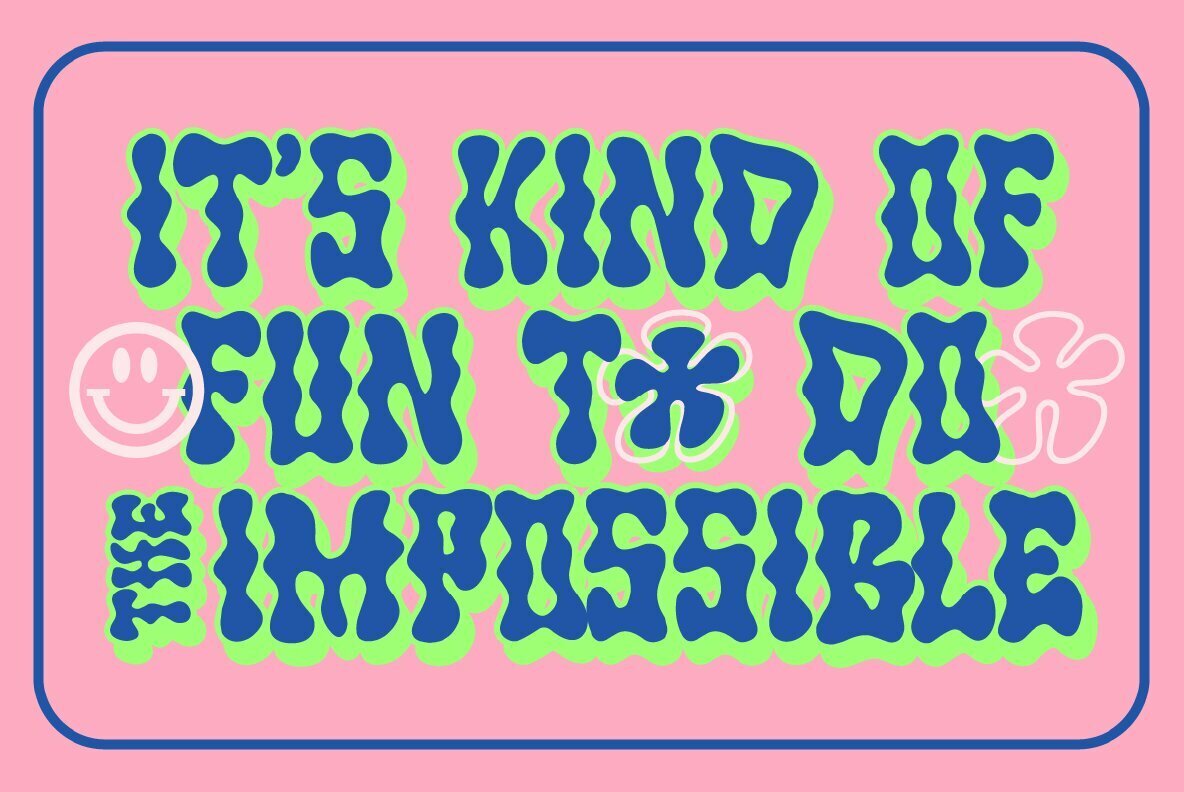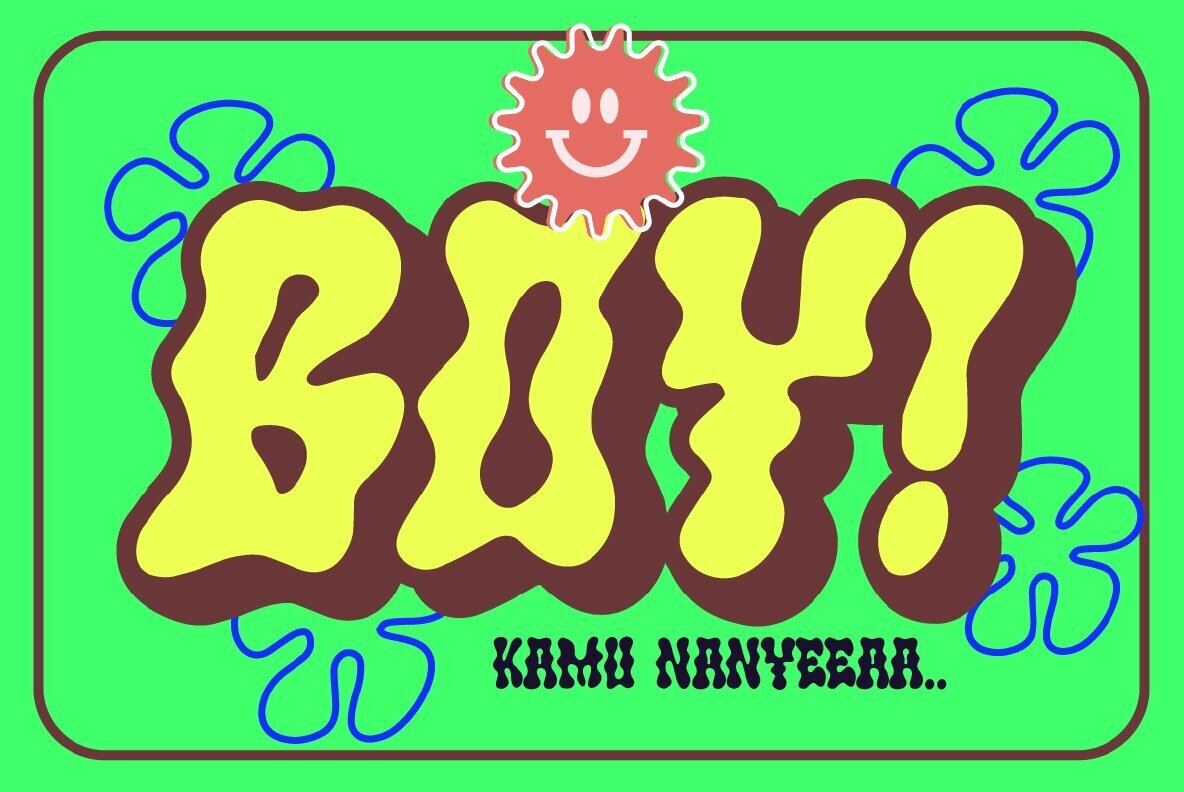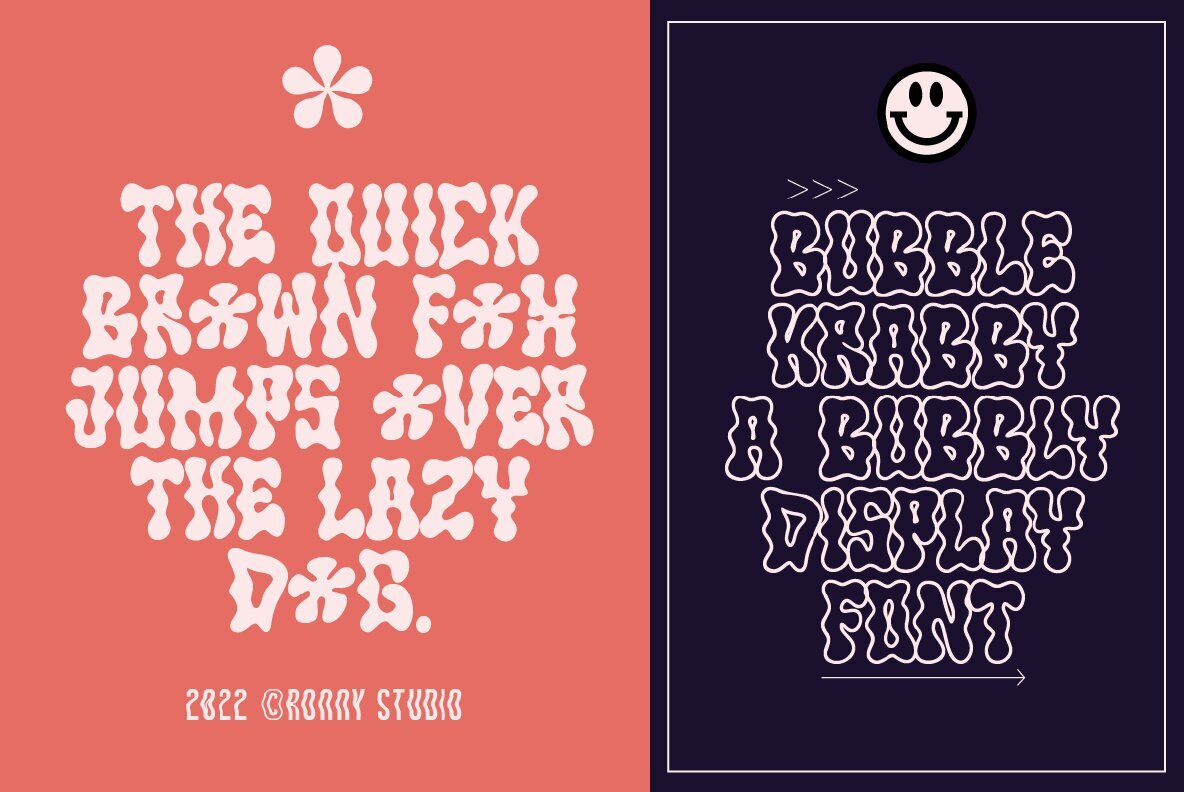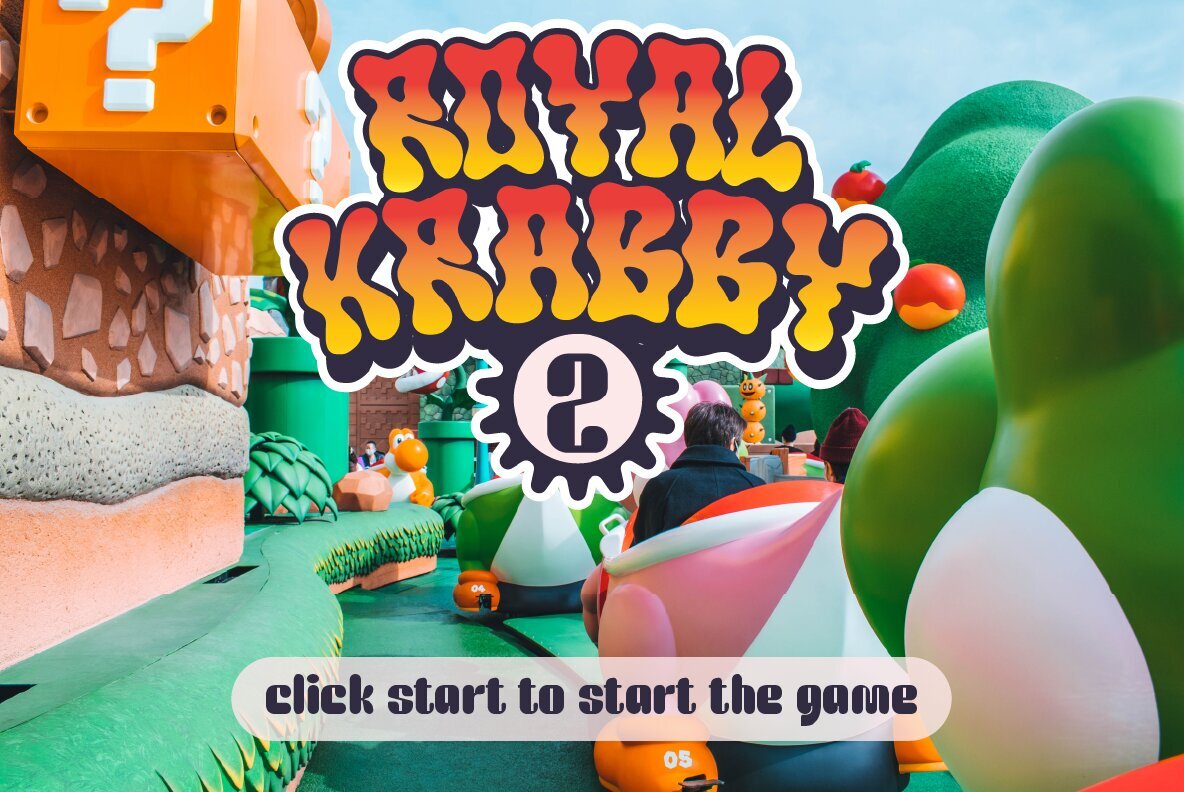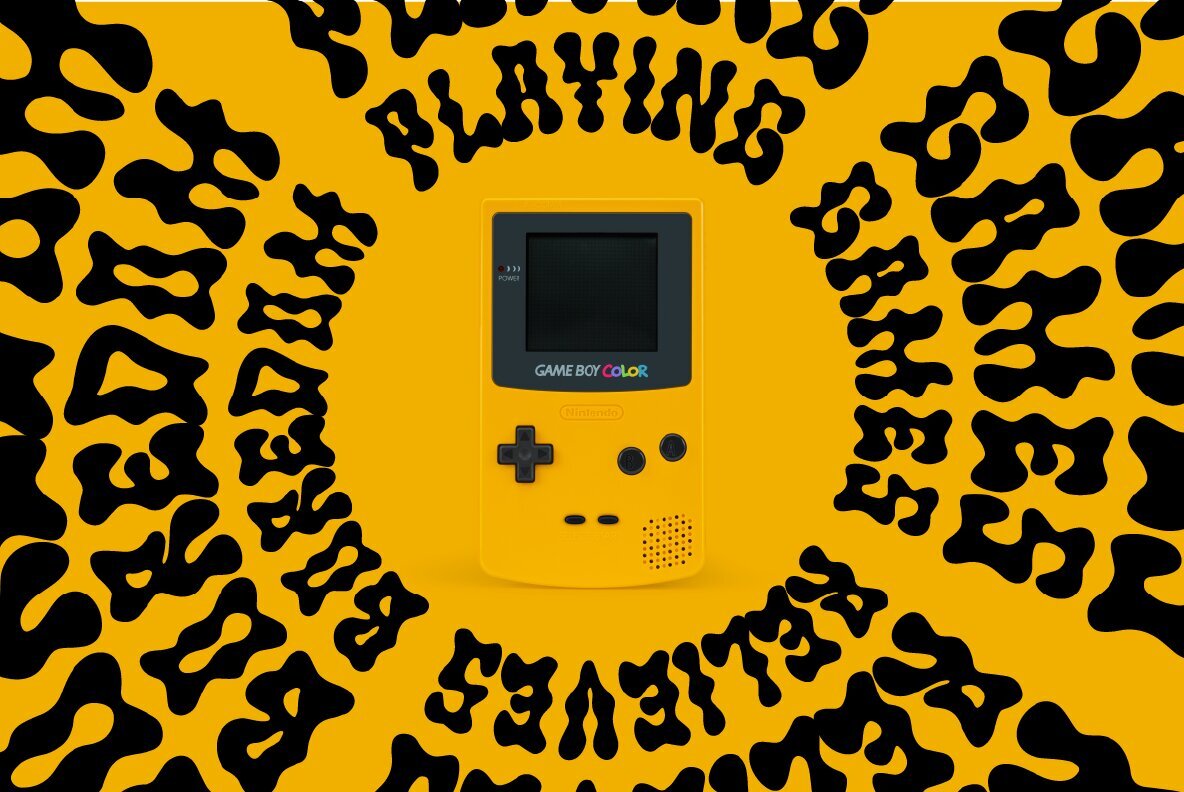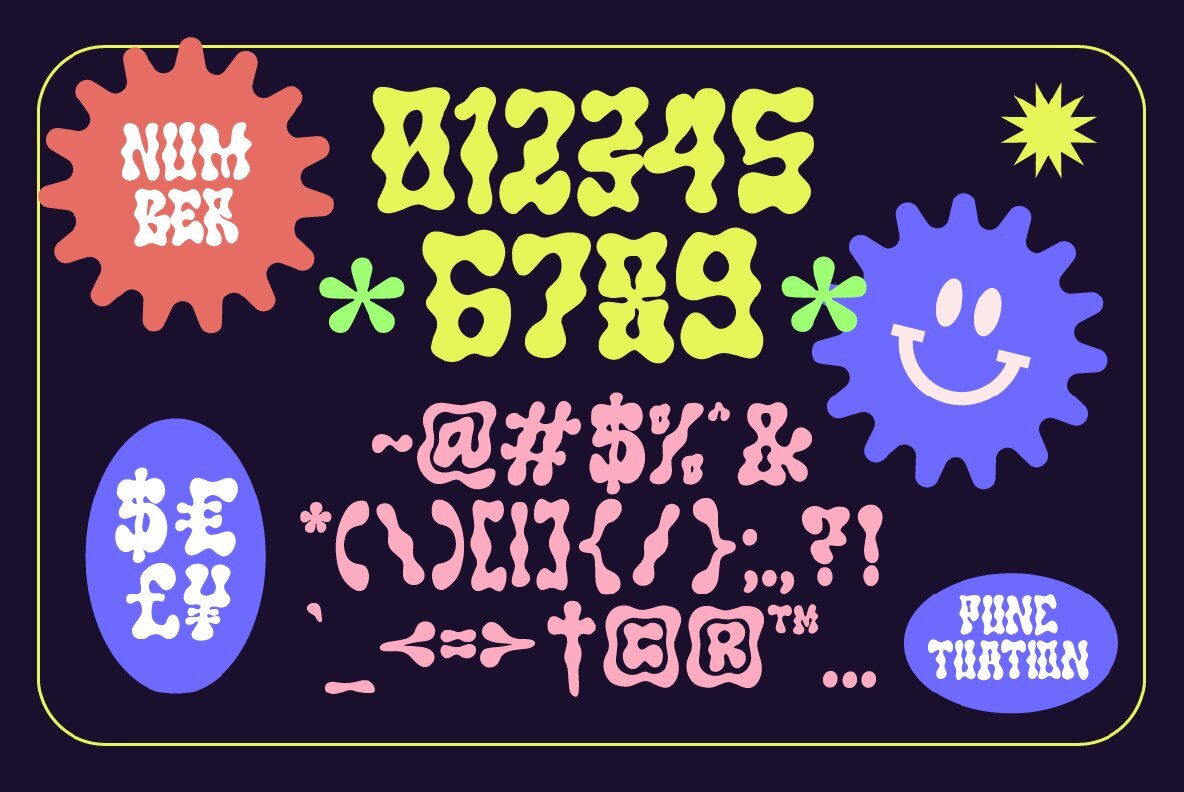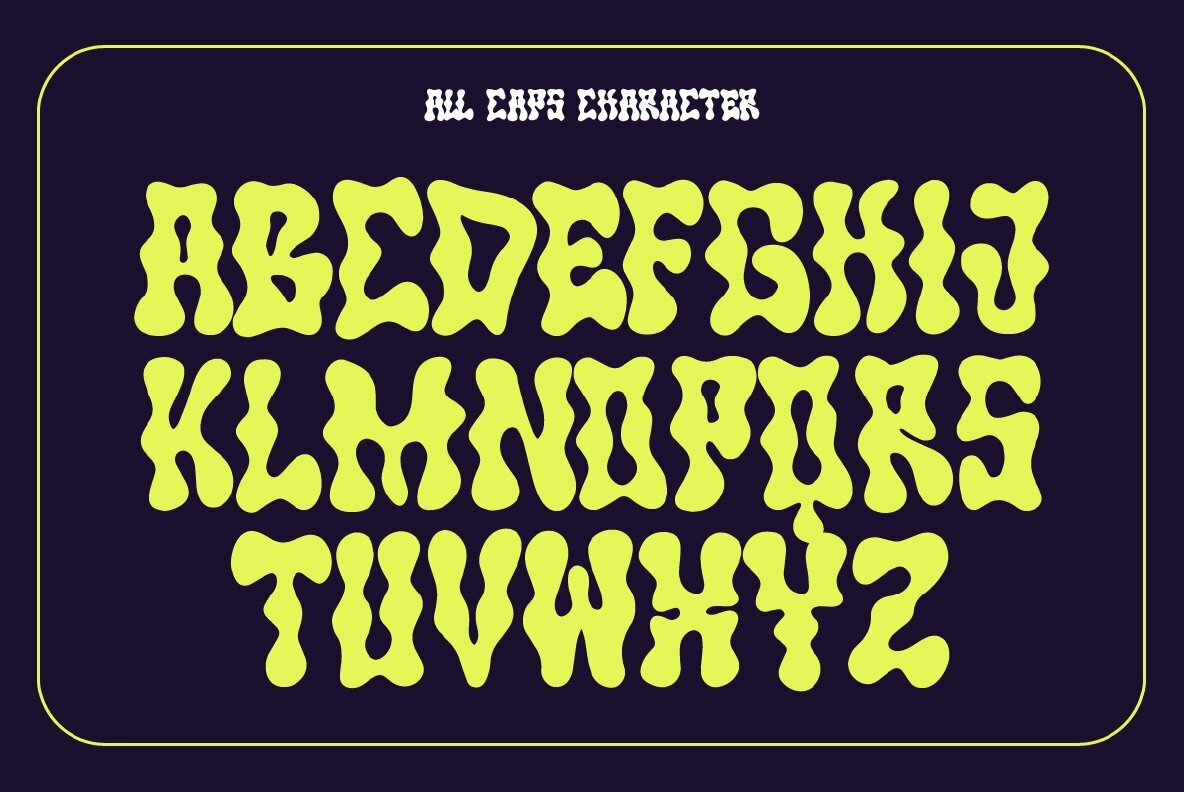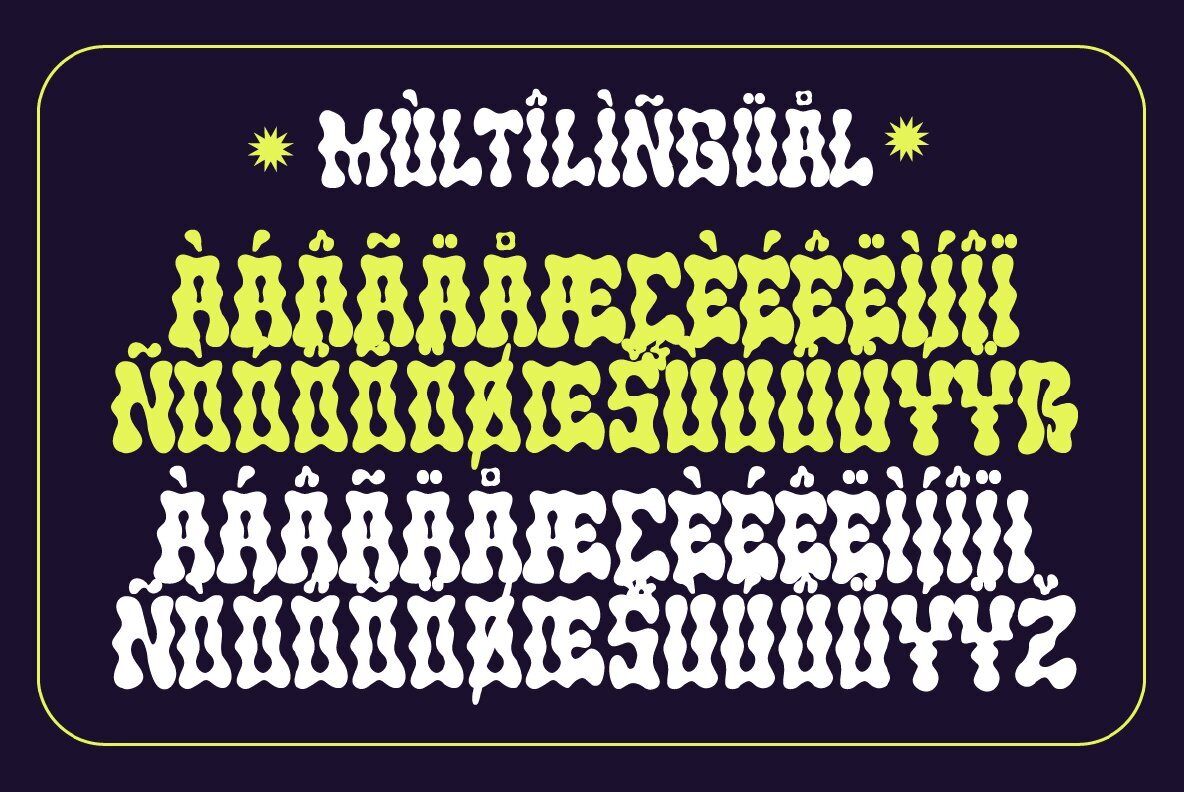
Bubble Krabby Font
Bubble Krabby brings a bold, playful touch to any design project. Perfect for designers aiming to infuse their work with a psychedelic, hand-crafted vibe, this retro-inspired typeface is well-suited for a variety of applications, including posters, magazines, Instagram posts, logos, games, and branding initiatives.Bubble Krabby: Retro Charm for Modern Designs